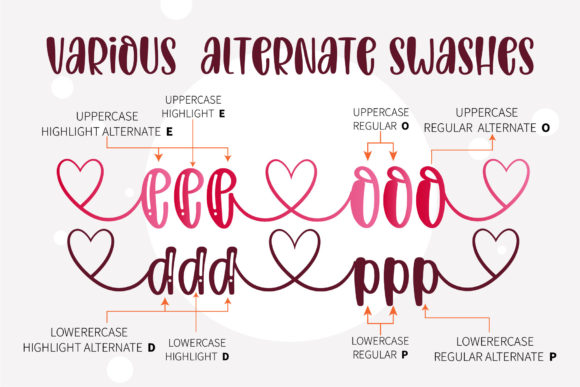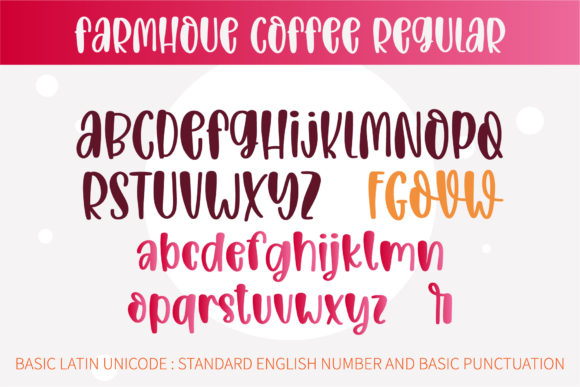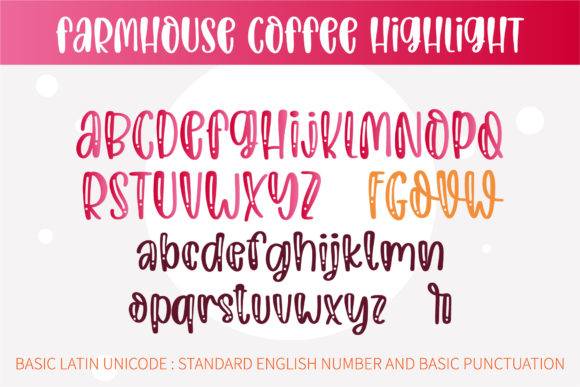
Introduction to Farmhous Coffee Font
Farmhouse Coffee is a fun and informal handwritten font.
Its natural and unique style makes it incredibly fitting to a large pool of designs This font is PUA encoded which means you can access all of the glyphs and swashes with ease.